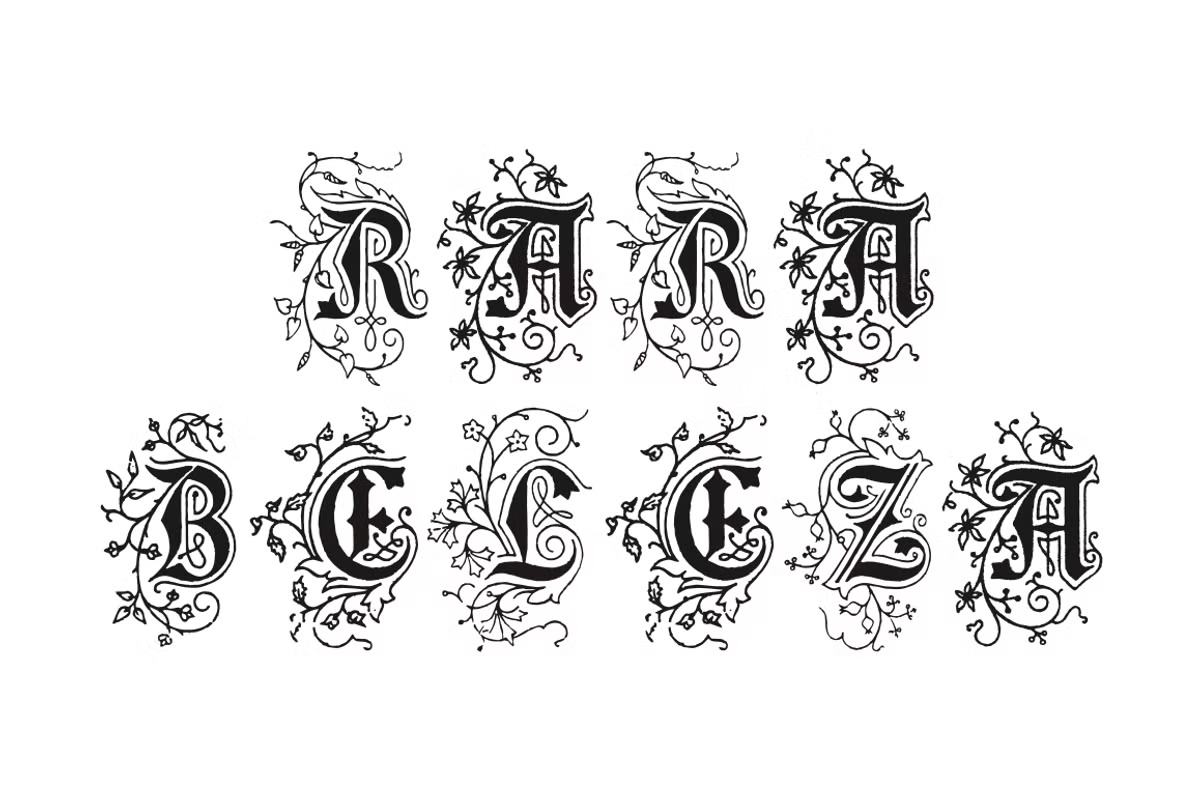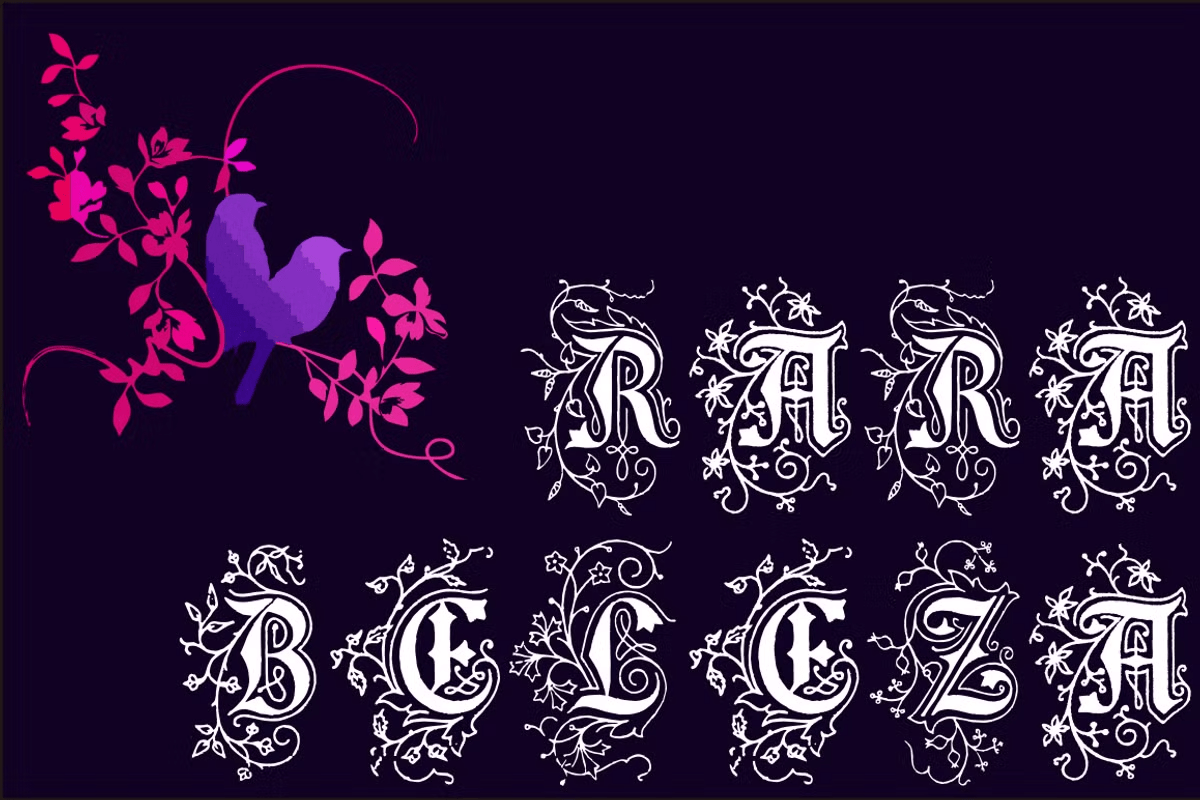
Rara Beleza
About Rara Beleza
A classic and antique font design remastered by the type foundry Intellecta Design. Great display face for headers and antique-like projects. Contains a limited amount of letter designs, all uppercase letter designs.